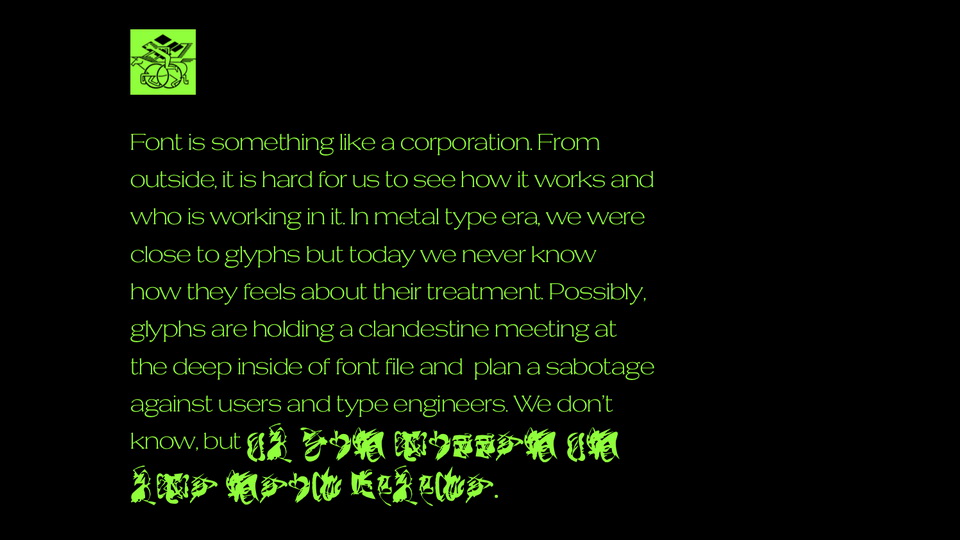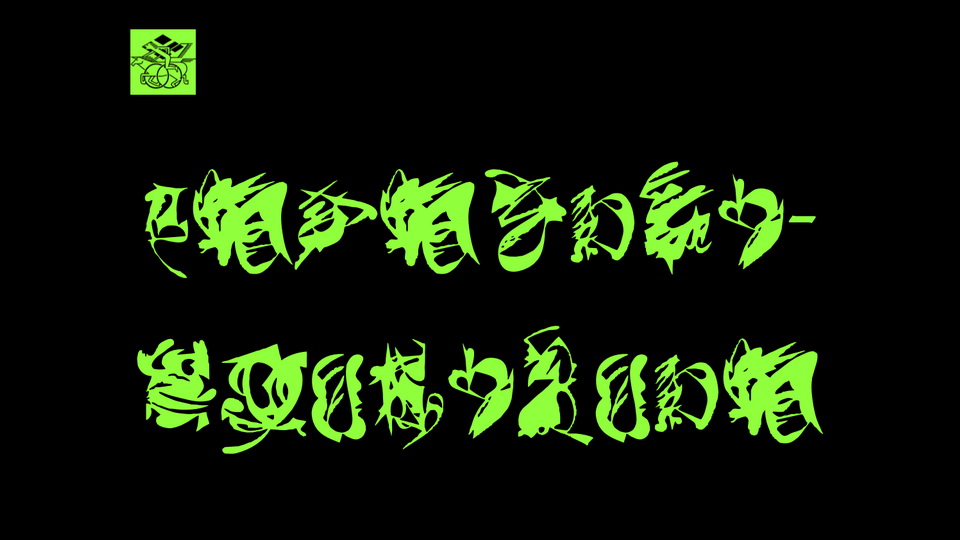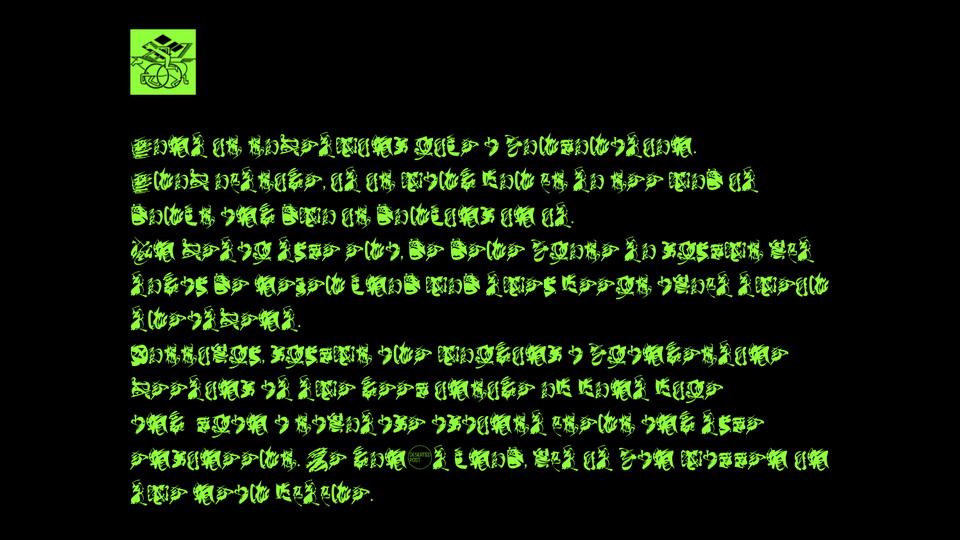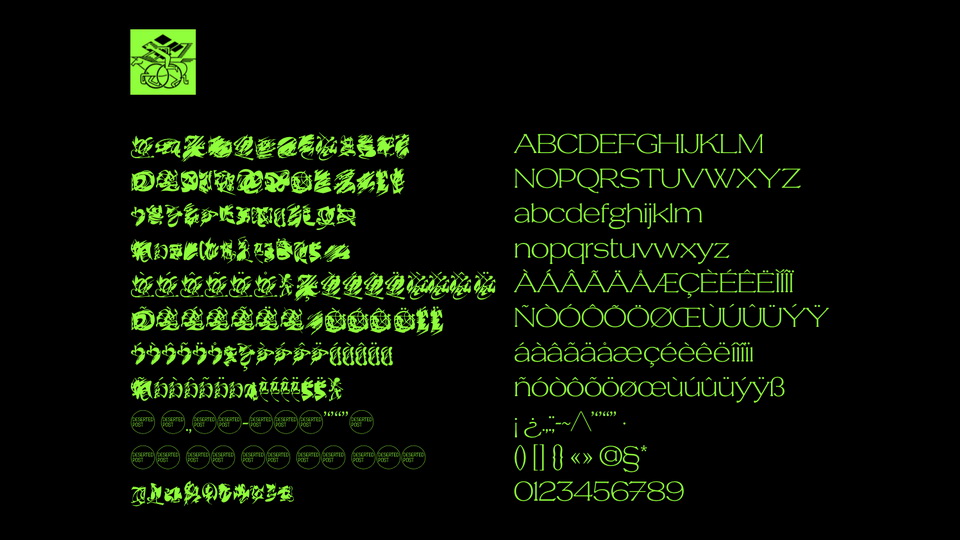
Mess is a unique display typeface that speak for itself.
Font is something like a corporation. From outside, it is hard for us to see how it works and who is working in it. In metal type era, we were close to glyphs but today we never know how they feels about their treatment. Possibly, glyphs are holding a clandestine meeting at the deep inside of font file and plan a sabotage against users and type engineers. We don’t know, but…